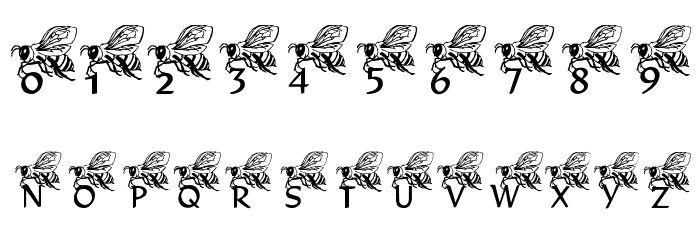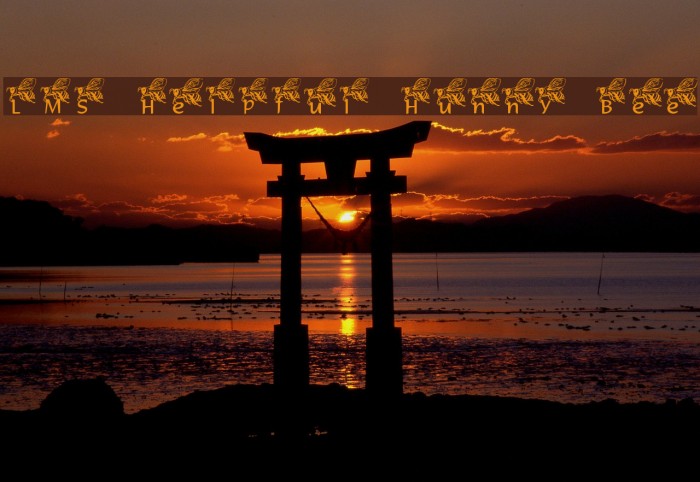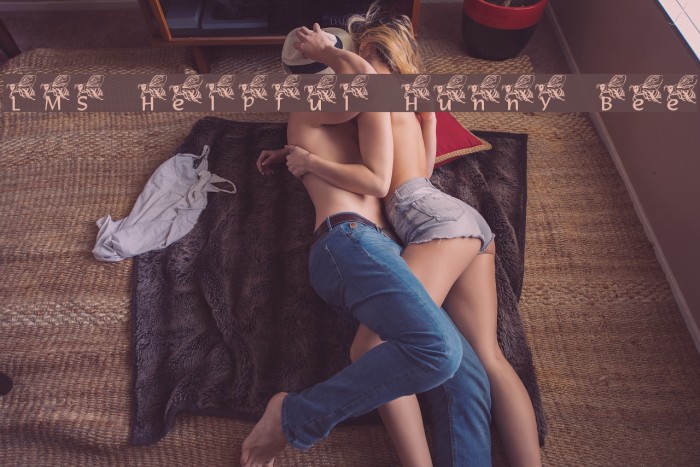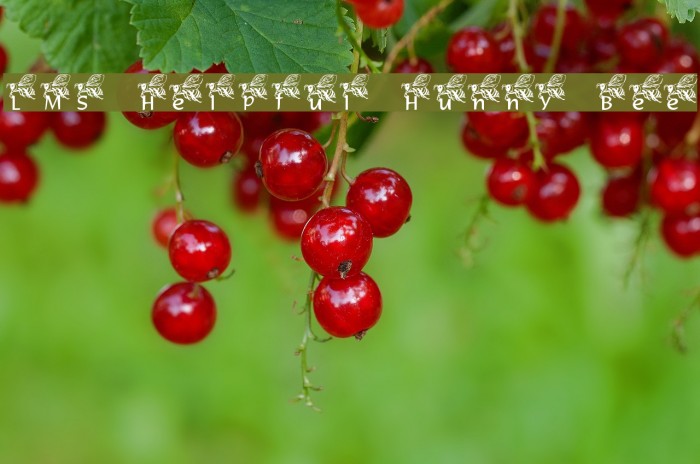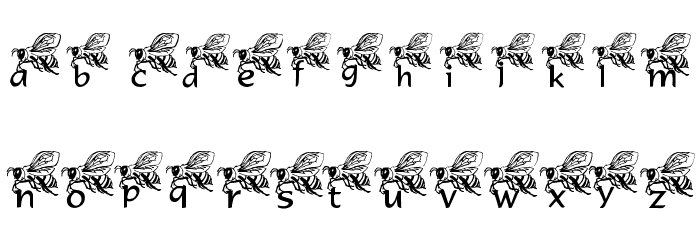
LMS Helpful Hunny Bee Font
LMS Helpful Hunny Bee Description
This font features a unique and playful design where each character is accompanied by a detailed illustration of a bee. The letters themselves are bold and clear, providing a strong contrast against the intricate bee design. The uppercase and lowercase letters maintain a consistent style, ensuring readability despite the decorative elements. The numbers and special characters also follow this theme, making the font cohesive across all character sets. This font is perfect for projects that require a whimsical or nature-inspired touch, adding a distinctive flair to any design.
A playful font with each character paired with a detailed bee illustration from Kids fonts.
- Proposed Projects: Ideal for children's books, nature-themed projects, or playful branding materials.
- Use Case: Headlines, Logos, Decorative text